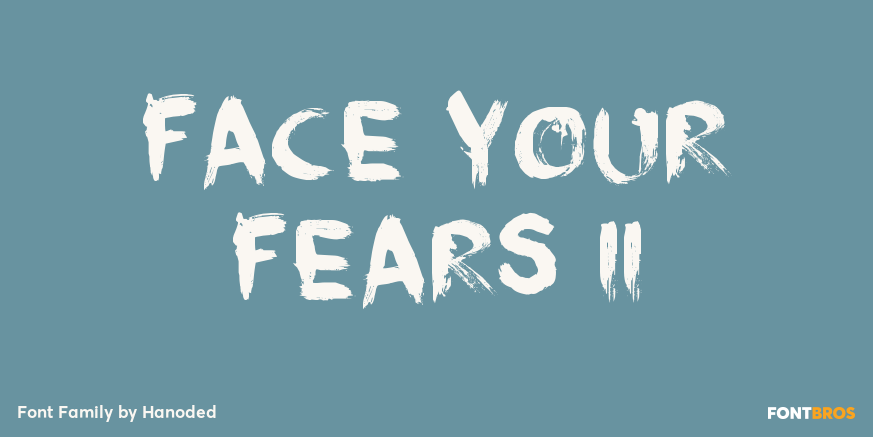
Face Your Fears II
When I created Face Your Fears some years ago, it was an instant hit. I have seen it on Gangsta Rap albums, metal albums, books and on movie posters. It has been used for T-shirts, websites and, believe it or not, for a beer label as well. I have always…